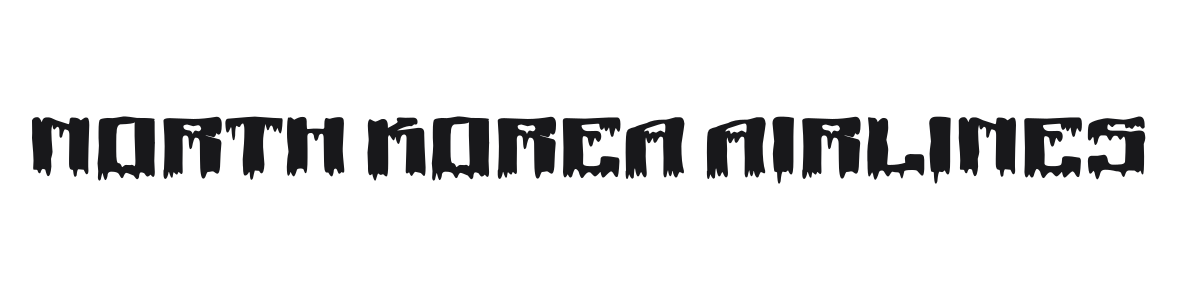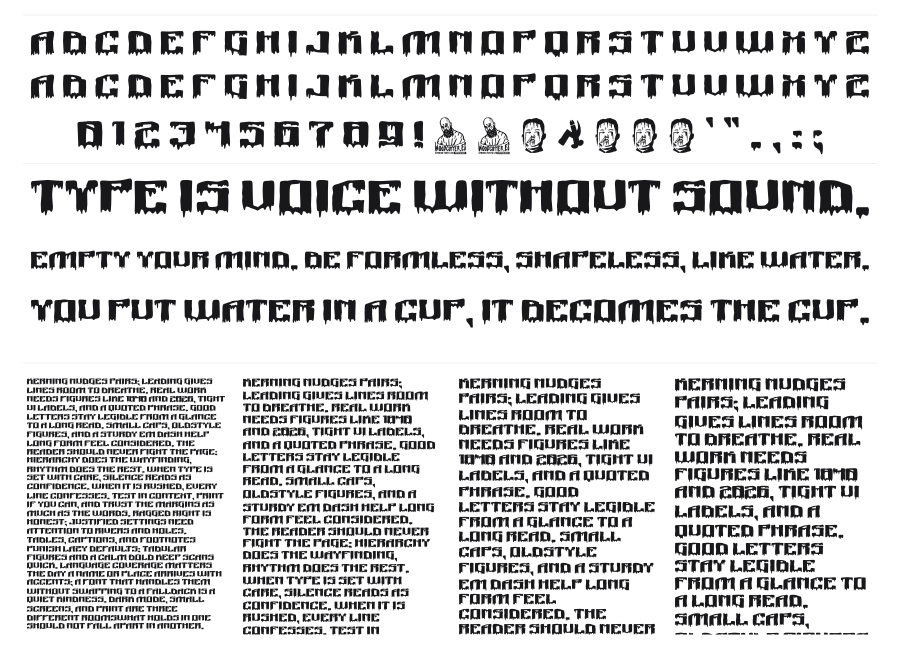
North Korea Airlines
North Korea Airlines is a heavy distressed display font by Woodcutter with a striking dripping-paint or melting effect applied to bold, condensed block characters. The blackletter-influenced construction gives it a rigid, authoritarian skeleton while the organic decay texture pulls it firmly into horror and punk territory. It commands attention on posters, album covers, and anywhere a dark, confrontational tone is needed.